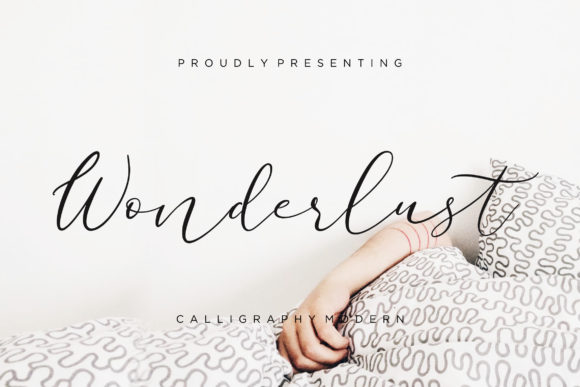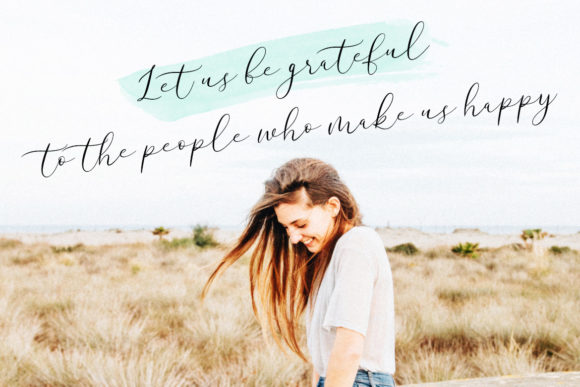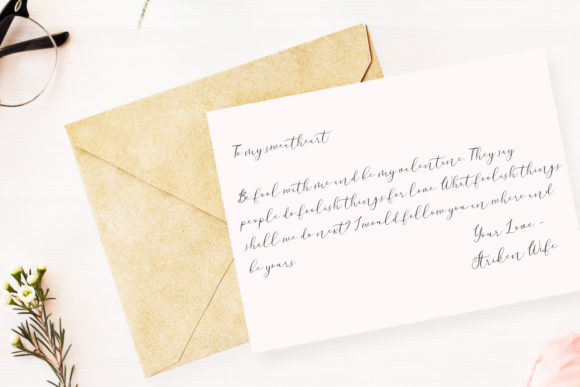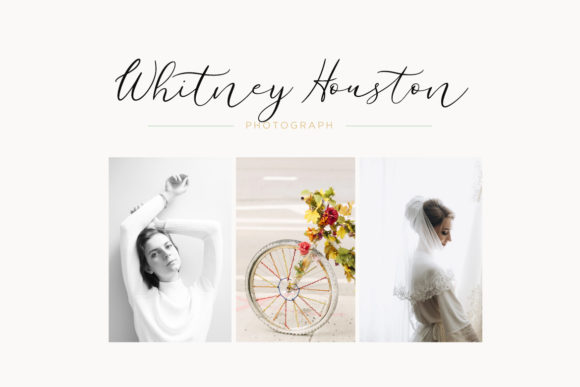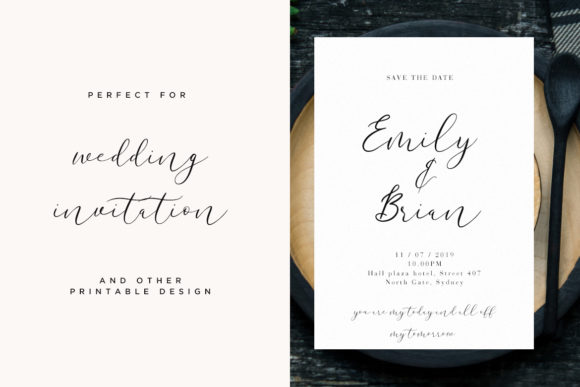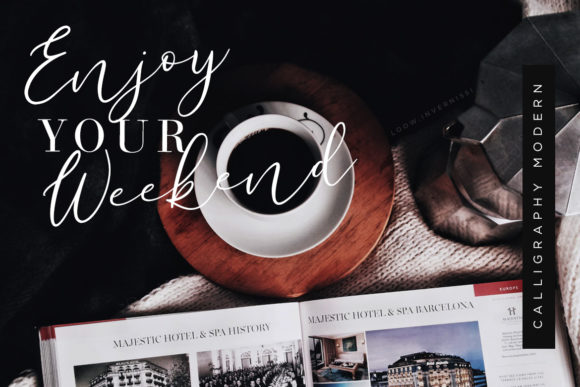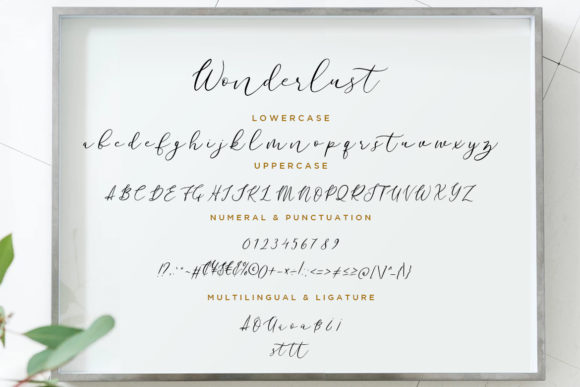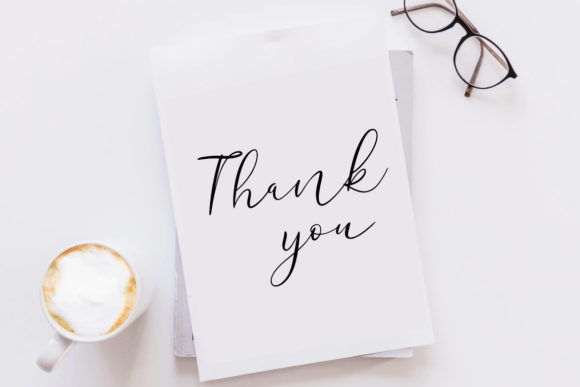
HomeScript FontsWonderlust Font Script Fonts Wonderlust Font FacebookXPinterestWhatsApp Wonderlust Font Poster 2 Wonderlust Font Poster 3 Wonderlust Font Poster 4 Wonderlust Font Poster 5 Wonderlust Font Poster 6 Wonderlust Font Poster 7 Wonderlust Font Poster 8 About Wonderlust Font Naturally elegant and sophisticated, Wonderlust is an effortlessly beautiful script with raw energy. DOWNLOAD ON CREATIVE FABRICAThis font is sold and delivered by Creative Fabrica. Font Canyon may earn a commission if you buy through this link. People also explored Falling Font Asortings Script Font Raidera Font Wankary Script Font Lovable Font Luxeshi Font Cabrito Inverto Magdalena Font Trio Font 288 0 TagsWonderlust Font Previous articleQuicksliver FontNext articleKingfisher Font LEAVE A REPLY Cancel reply Comment: Please enter your comment! Name:* Please enter your name here Email:* You have entered an incorrect email address! Please enter your email address here Website: Save my name, email, and website in this browser for the next time I comment. Personal Use Free Knucklehead Personal Use Free Read more about this font Austins Personal Use Free Read more about this font Beat My Guest Personal Use Free Read more about this font Leorio Personal Use Free Read more about this font BLOG Top 7 Google Fonts Alternatives for Faster and Privacy-Friendly Web Design (2025) Top 7 Google Fonts Alternatives for Faster and Privacy-Friendly Web Design (2025) When it comes to web typography, Google Fonts has long been the go-to... Free Fonts Risk: Why Free Fonts Can Be Dangerous for Designers How to Cut Any Font on Cricut: Convert a Font to SVG (Free) Free vs Paid Fonts: Why Investing in Premium Fonts Is Worth It